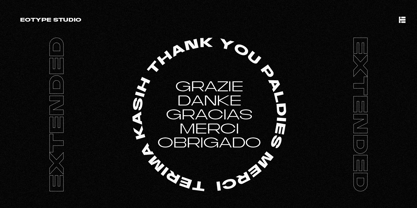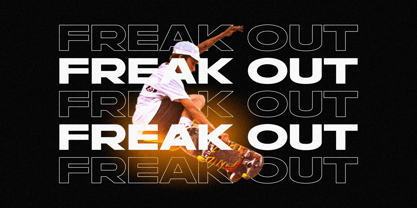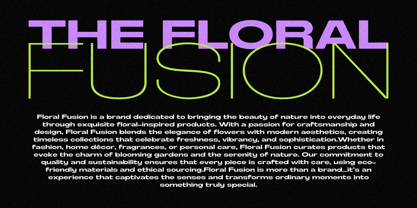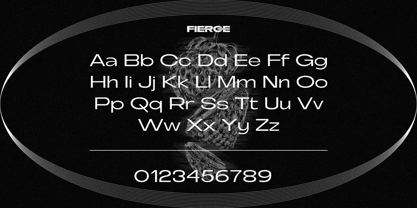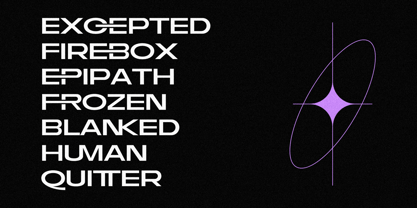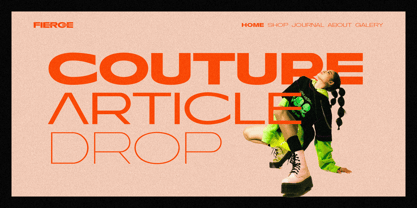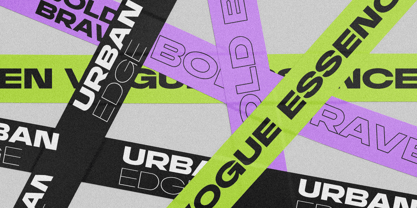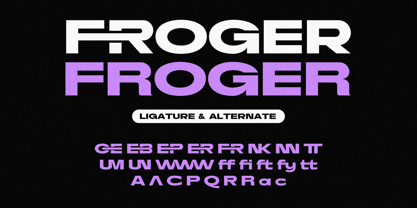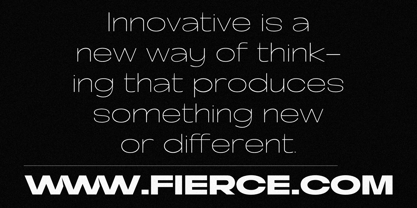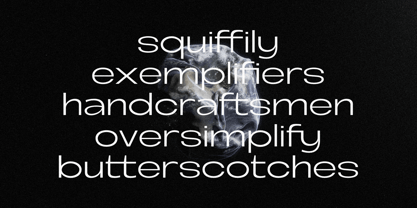
Fergie
von Eotype
Die Schriftfamilie Fergie wurde von Fajar Ramadan entworfen und von Eotype veröffentlicht. Fergie enthält 9 Stile und Familienpaketoptionen.
Introducing a fergie sans-serif typeface that embodies power, versatility, and bold expression. Designed with nine distinct styles, ranging from Thin to Black, this typeface adapts effortlessly to any design need—whether sleek and refined or strong and commanding.
With alternate characters and stylish ligatures, it offers a dynamic edge, allowing for customized looks that enhance creativity and impact. Its clean yet assertive letterforms exude confidence, making it perfect for branding, editorial design, sports, fashion, and high-energy visual statements.